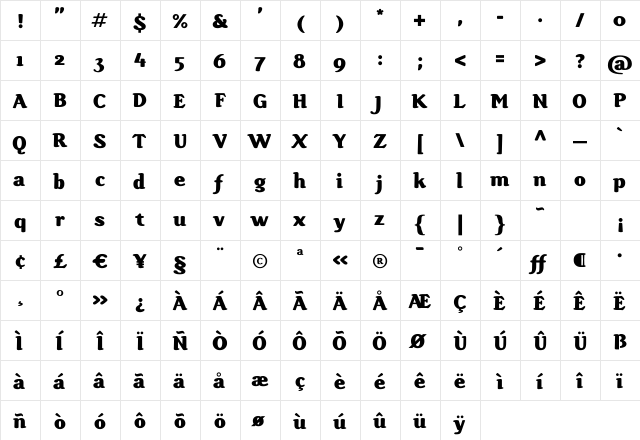
GopalHeavy Regular
Design Context for GopalHeavy Typeface
GopalHeavy takes a measured approach to typography — its balanced proportions and neutral character make it a reliable workhorse for both digital and print work.